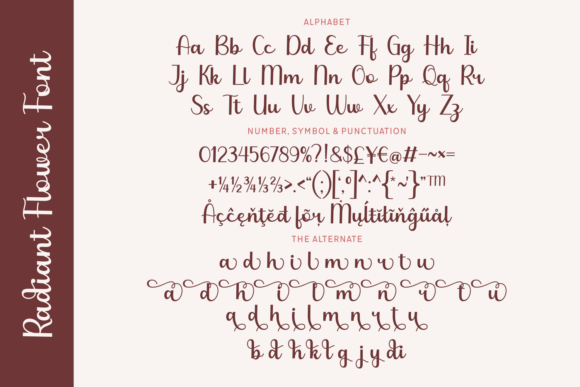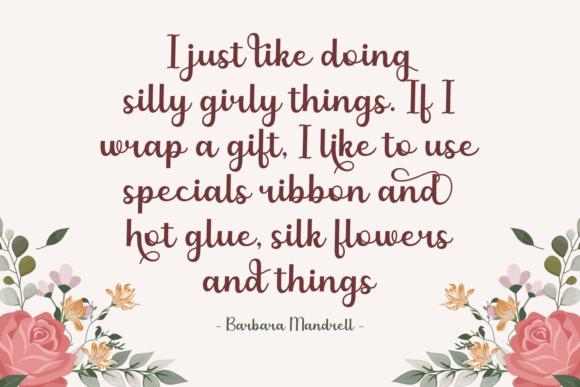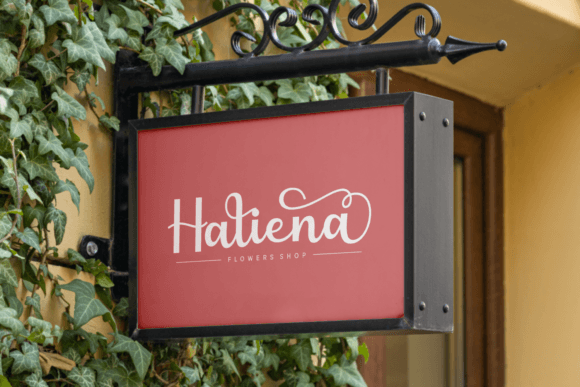
Introduction to Radiant Flower Font
Radiant Flower is a charming and vibrant modern script font, featuring smooth curves and enchanting swashes that evoke a sense of natural beauty.
Its graceful yet bold style is perfect for floral designs, wedding stationery, branding, logos, and heartfelt quotes Add a touch of elegance and nature-inspired flair to your projects with Radiant Flower.
Key Features of Radiant Flower Font
Why Choose Radiant Flower Font?
Radiant Flower Font offers exceptional quality and versatility, making it a valuable addition to your design toolkit. Whether you’re creating for personal projects or commercial use, Radiant Flower Font delivers professional results.